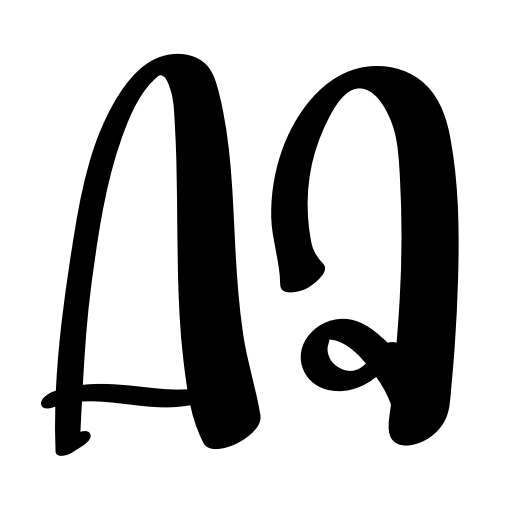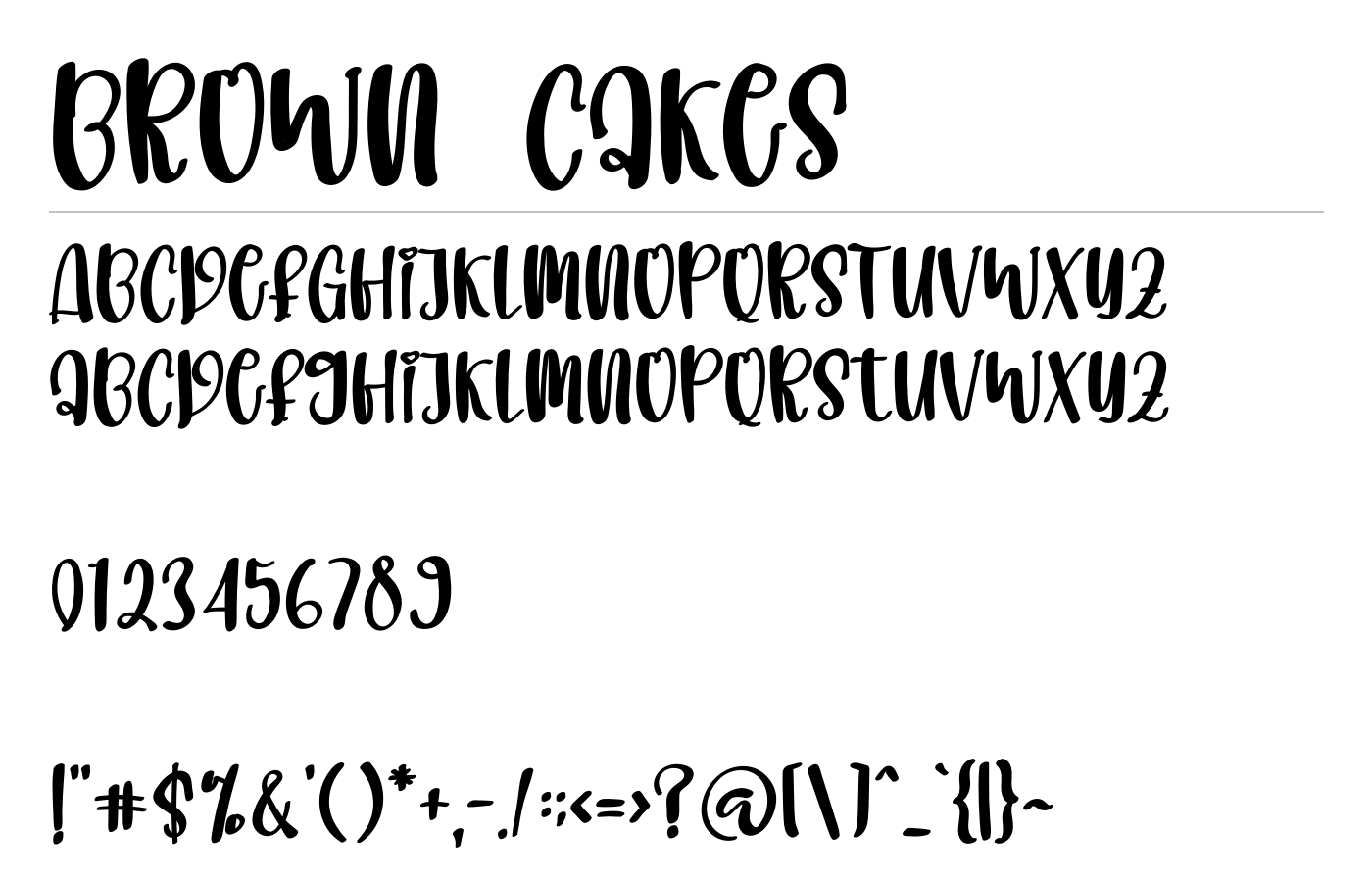
Brown Cakes is a playful and casual handwritten font with a bold, rounded style that conveys warmth and friendliness. Its lively letterforms and unique details make it ideal for fun, creative projects such as kids’ branding, packaging, and informal headlines where an inviting and charming personality is desired.
Brown Cakes Font
About Brown Cakes Font